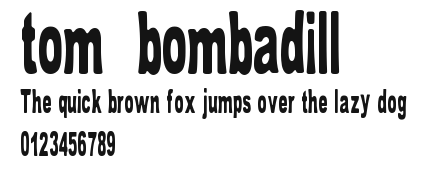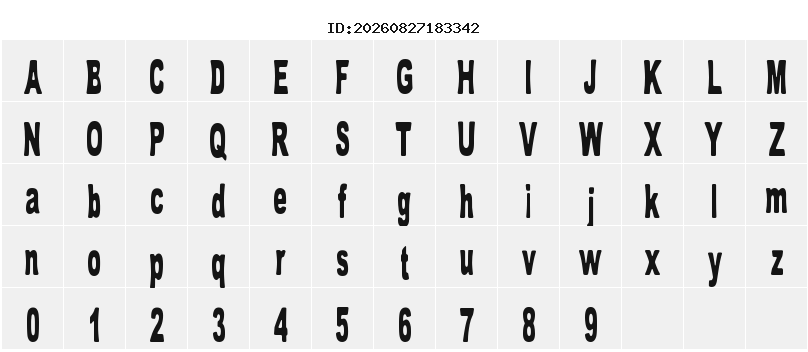
• Font Name: tom_bombadill
About tom_bombadill.ttf
tom_bombadill.ttf is a modern, elegant sans-serif font designed for ultimate readability and visual harmony. Perfect for branding, headlines, web design, and print materials.